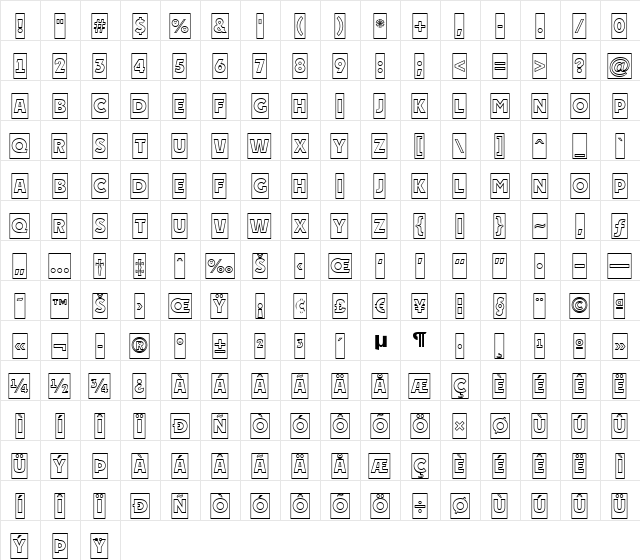
a_PlakatCmOtl Regular Font Preview
a_PlakatCmOtl Regular
a_PlakatCmOtl Regular Font Details
| Designer | W.Chufarofsky & M.Slutsker |
Design Context for a_PlakatCmOtl Typeface
a_PlakatCmOtl is a composed and adaptable typeface that performs quietly and consistently across a wide range of design contexts.